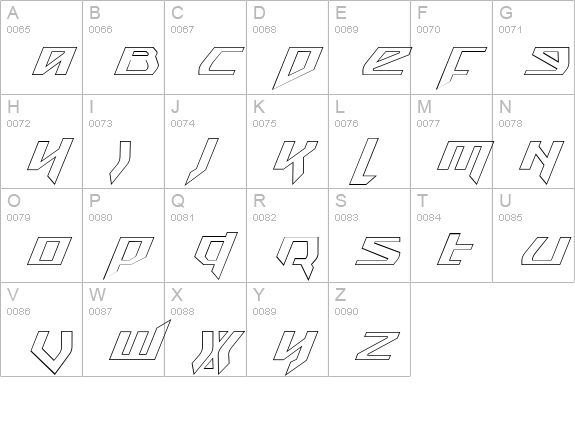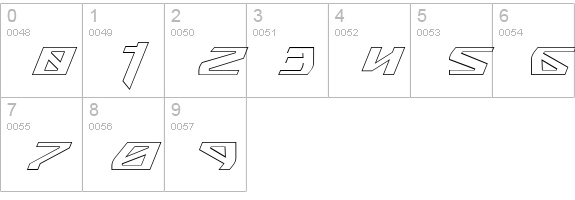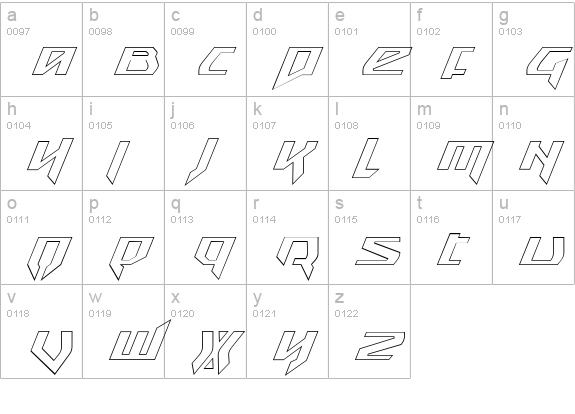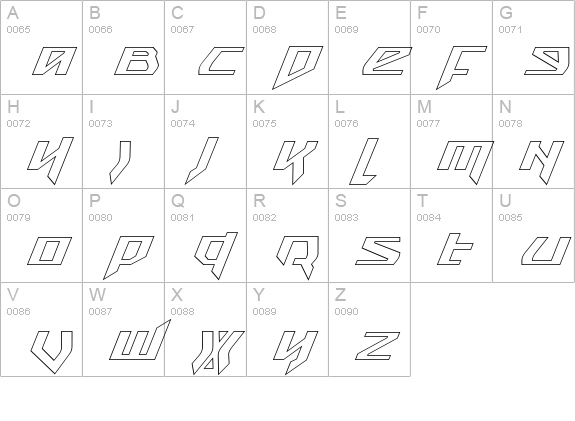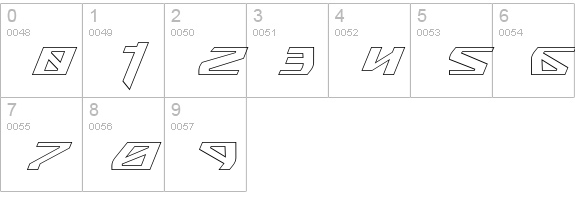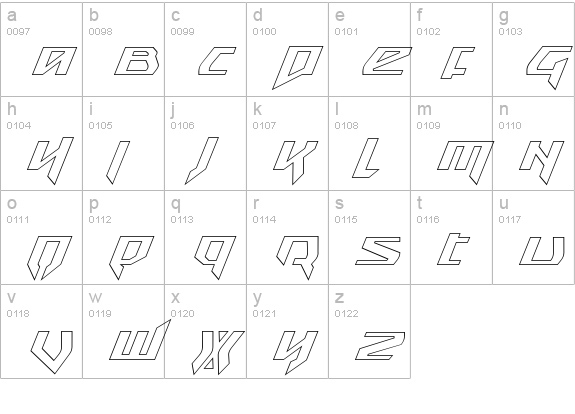
Snubfighter Outline Italic is a distinctive, italic variant in the Snubfighter typeface family \xE2\x80\x94 well suited to design and typography projects.
Introducing Snubfighter Outline Italic font, a sleek and modern typeface that exudes sophistication and style. With its elegant slanted design and sharp edges, this font is perfect for adding a touch of flair to your projects. Whether you're creating a logo, designing a website, or crafting eye-catching typography, Snubfighter Outline Italic font is sure to make a bold statement. Best of all, this stunning font is available for free download exclusively at FontsMarket.com. Don't miss out on the opportunity to enhance your designs with this unique and versatile typeface. Download Snubfighter Outline Italic font today and let your creativity soar!